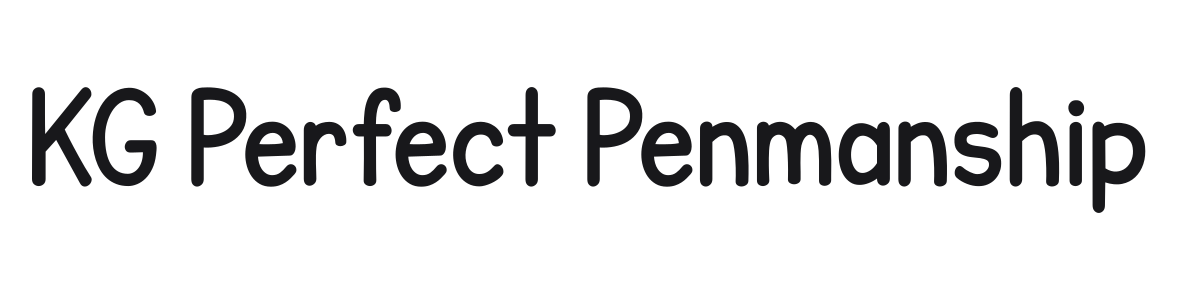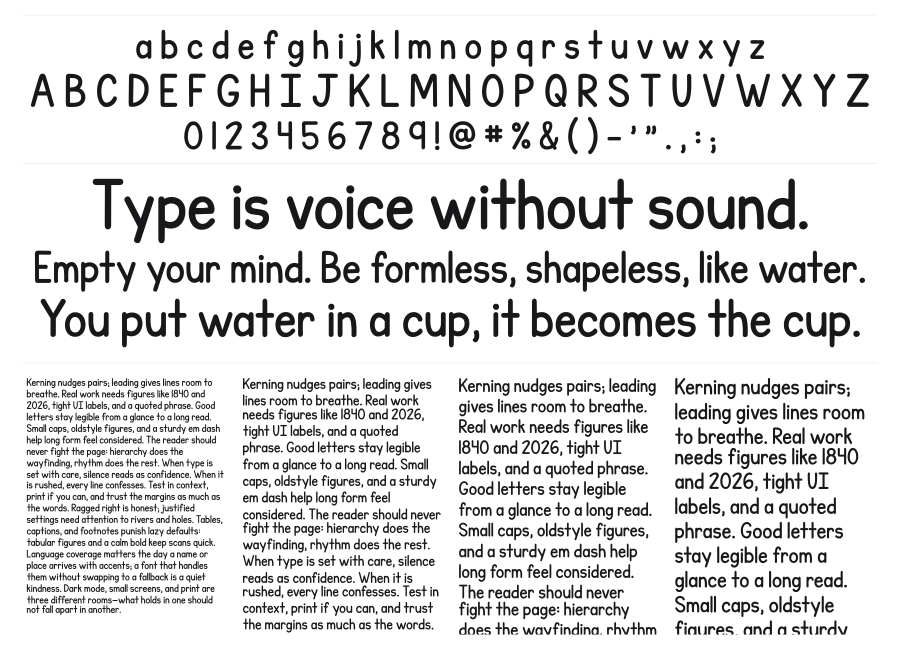
KG Perfect Penmanship
KG Perfect Penmanship is a casual handwritten sans with rounded terminals and a warm, pen-lettered feel. The characters have just enough irregularity to read as genuinely hand-drawn rather than mechanically constructed. It works well wherever a friendly, approachable voice is needed, from classroom worksheets to packaging for kids.